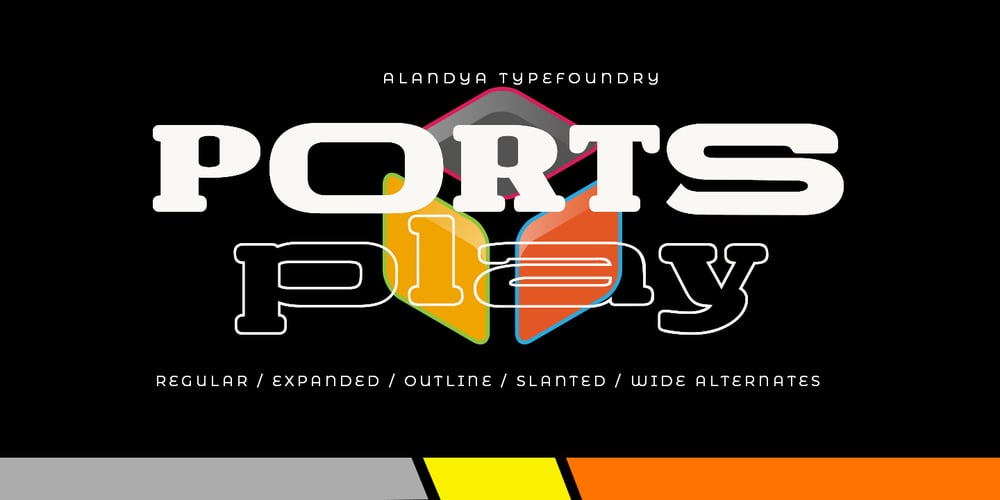
Ports Play Font Family was designed by Cut Nurfajarlia and published by Alandya TypeFoundry. Ports Play contains 18 styles and family package options. Port Play …Based on Density Slab Serif, now with other styles, Normal and Expand, equipped with alternative letters that are so wide that they give a strong, clear, masculine feel, and have good legibility.Port Play comes in regular, oblique, outline, and outline oblique styles along with regular and oblique variable files.This font is perfect for every project. suitable for branding logo, badge design, or apparel design.This font also comes with multilingual support.